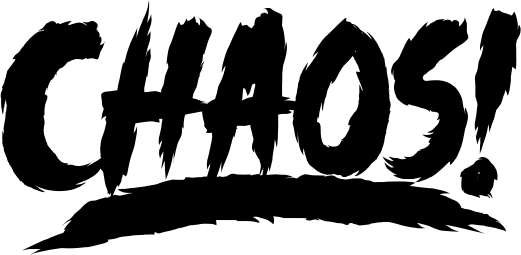
Chaos! Font
Put simply; there’s nothing more thrilling than the brutal script font in designing and highlighting many posters, apparel, logos, TV shows, and more. Its mad paintbrush comes to draw bold dirty scribble designs to put amazing friendly arrangements and play up your fantasy artwork as well.
Although this Chaos! is available just in capital letters, it can turn out to be valuable when you desire your typography to be eminent with its classic handwritten inky style.
Type: Bold Font– Bold Font with intense anger emotion
– Perfect for heavy music and dark theme works
– Available in uppercase and lowercase